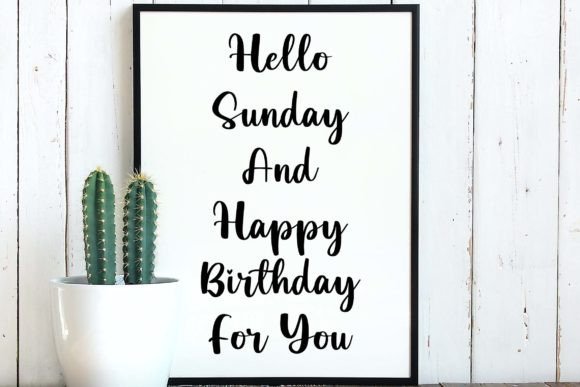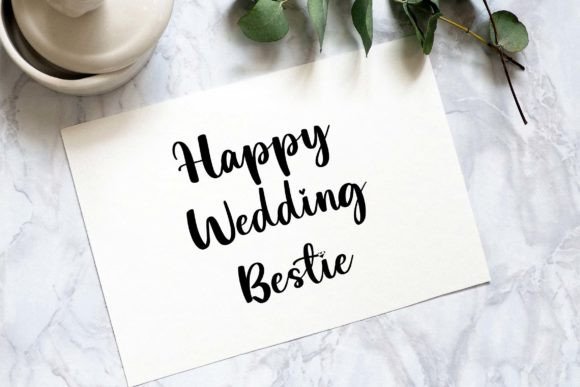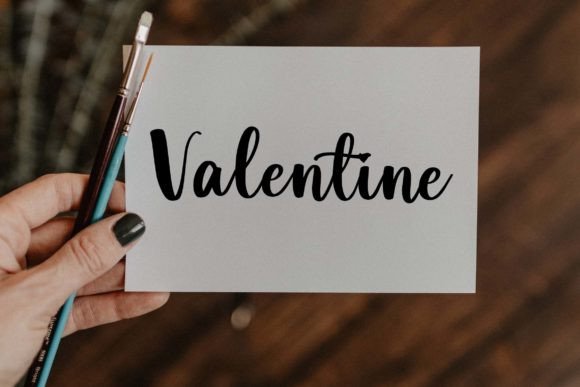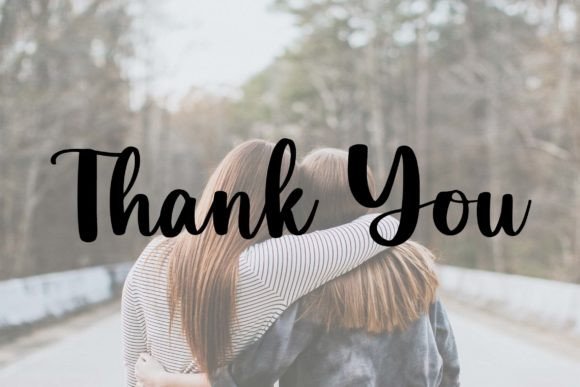
Introducing Friendship Font: The Perfect Handwritten Touch for Your Designs
Are you a designer or crafter looking for a font that exudes elegance and charm? Look no further than Friendship Font! This beautiful handwritten font is perfect for adding a personal touch to your designs, and its versatility makes it suitable for a wide range of projects.
What Makes Friendship Font So Special?
Friendship Font is a stunning script font that feels equally charming and elegant. Its flowing lines and delicate curves make it perfect for designs that require a touch of sophistication. Whether you’re creating wedding invitations, thank you cards, quotes, greeting cards, logos, business cards, or any other design that needs a handwritten touch, Friendship Font is the perfect choice.
Wedding invitations, save-the-date cards, and other event designs require a font that is both elegant and romantic. Friendship Font fits the bill perfectly. Its beautiful script lines and delicate flourishes make it ideal for creating stunning wedding designs that will leave a lasting impression on your guests.
Ideal for Crafters and DIY Enthusiasts
If you’re a crafter or DIY enthusiast, you’ll love Friendship Font! This font is perfect for creating handmade cards, gift tags, and other paper crafts. Its handwritten touch adds a personal and unique element to your creations, making them truly special.
Versatile and Easy to Use
Friendship Font is incredibly versatile and can be used for a wide range of design projects. Its clean and elegant lines make it perfect for:
- Wedding invitations and event designs
- Thank you cards and greeting cards
- Quotes and typography designs
- Logos and branding designs
- Business cards and stationery
- Paper crafts and DIY projects
Why Choose Friendship Font?
There are many reasons why you should choose Friendship Font for your design projects. Here are just a few:
- Elegant and charming: Friendship Font has a beautiful, elegant feel that adds a touch of sophistication to any design.
- Versatile: This font can be used for a wide range of design projects, from wedding invitations to logos and business cards.
- Unique and personal: The handwritten touch of Friendship Font adds a unique and personal element to your designs, making them truly special.
Tips for Using Friendship Font
Here are a few tips for using Friendship Font in your design projects:
- Use it sparingly: Friendship Font is a beautiful font, but it can be overwhelming if used too much. Use it sparingly to add a touch of elegance to your designs.
- Pair it with other fonts: Friendship Font pairs well with other fonts, such as sans-serif fonts and serif fonts. Experiment with different pairings to find the one that works best for your design.
- Adjust the size and color: Friendship Font looks great in a variety of sizes and colors. Experiment with different sizes and colors to find the one that works best for your design.
Friendship Font is a beautiful, elegant script font that is perfect for adding a handwritten touch to your designs. Its versatility and ease of use make it suitable for a wide range of design projects, from wedding invitations to logos and business cards. Whether you’re a designer or crafter, Friendship Font is a great choice for any project that requires a touch of sophistication and elegance.